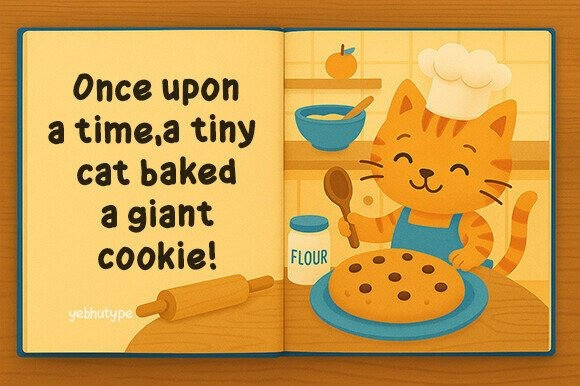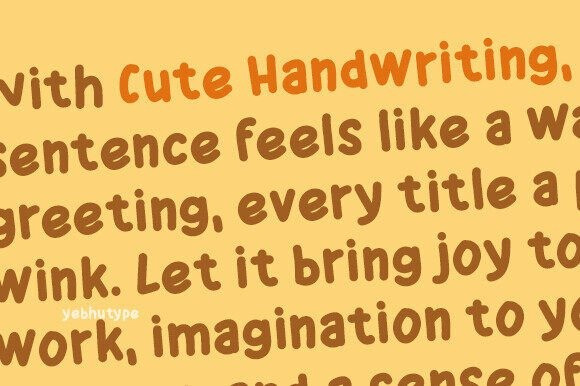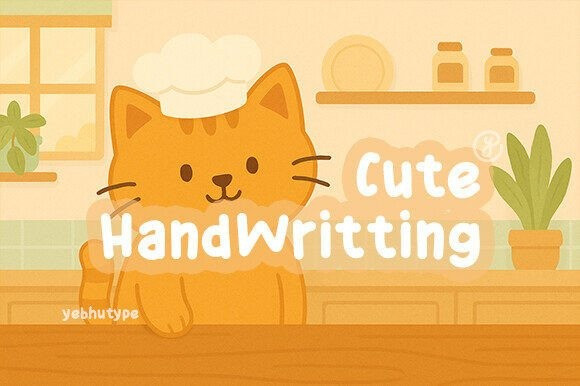
Cute Handwriting Font
Cute Handwriting Font, a bubbly handwritten typeface that radiates warmth, joy, and a playful spirit. Inspired by the charm of spontaneous sketches and cheerful scribbles, this font captures the essence of carefree creativity. Whether you’re designing for kids, crafting something cozy, or adding a dash of personality to your project, Cute Handwritiing makes every letter feel like a hug in type form.
With its rounded edges, gentle curves, and lively rhythm, Cute Handwriting invites you to explore a world where fonts aren’t just tools—they’re storytellers.
The Magic Behind Cute Handwriting
Cute Handwrriting is more than just a typeface—it’s an experience. It echoes the joy of hand-drawn doodles in notebooks, the innocence of childhood, and the comfort of something lovingly imperfect. Every glyph carries a touch of humanity, reminding us that creativity isn’t always clean—it’s real, relatable, and full of heart.